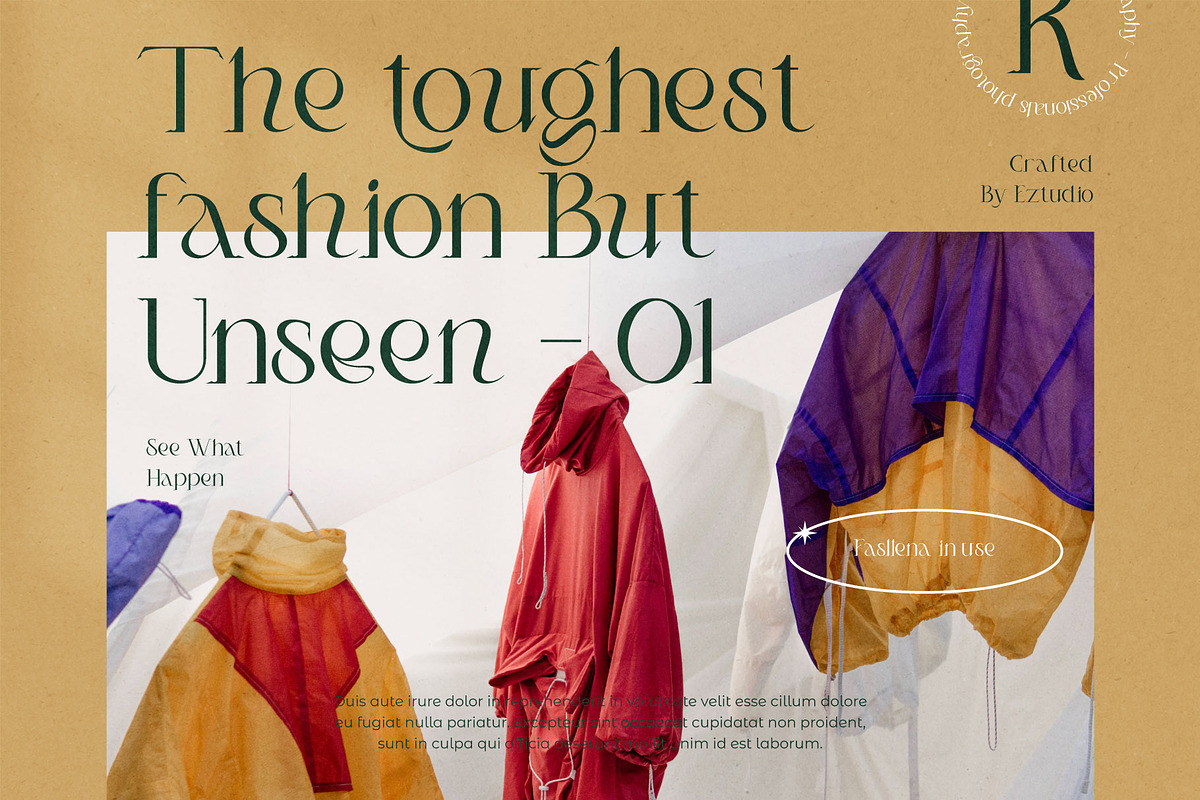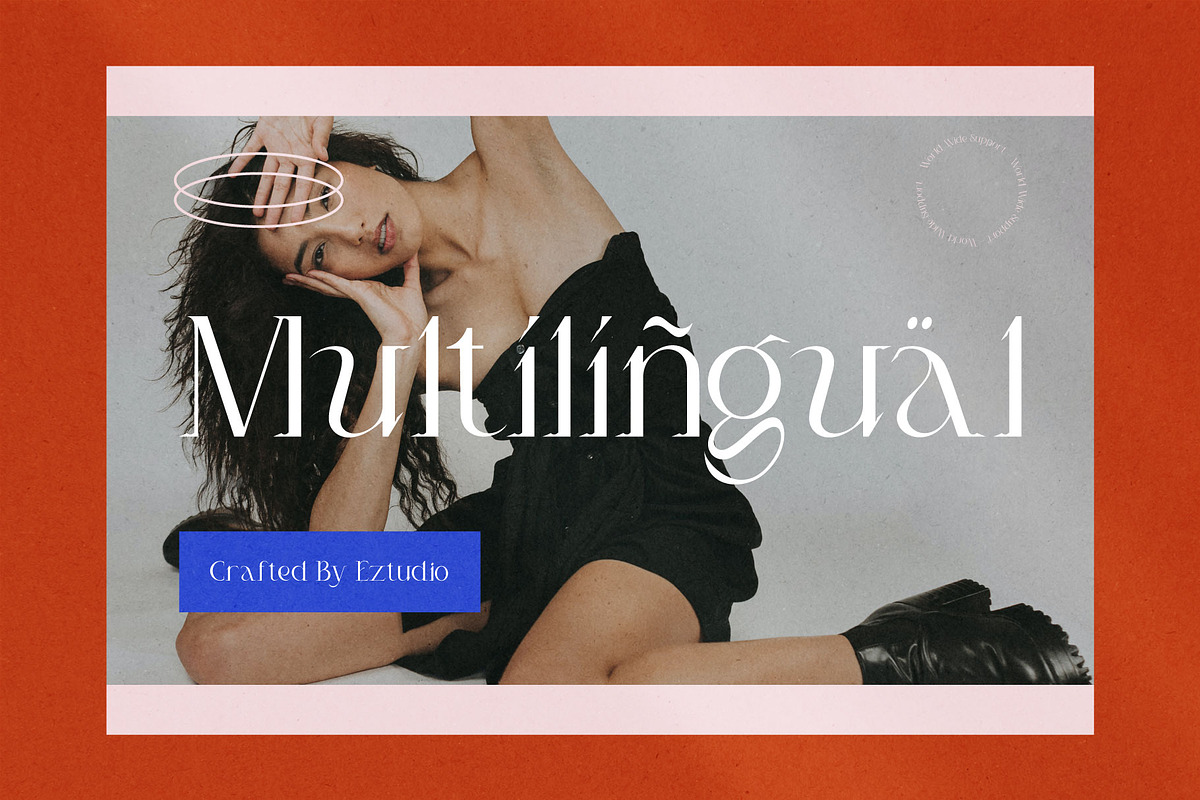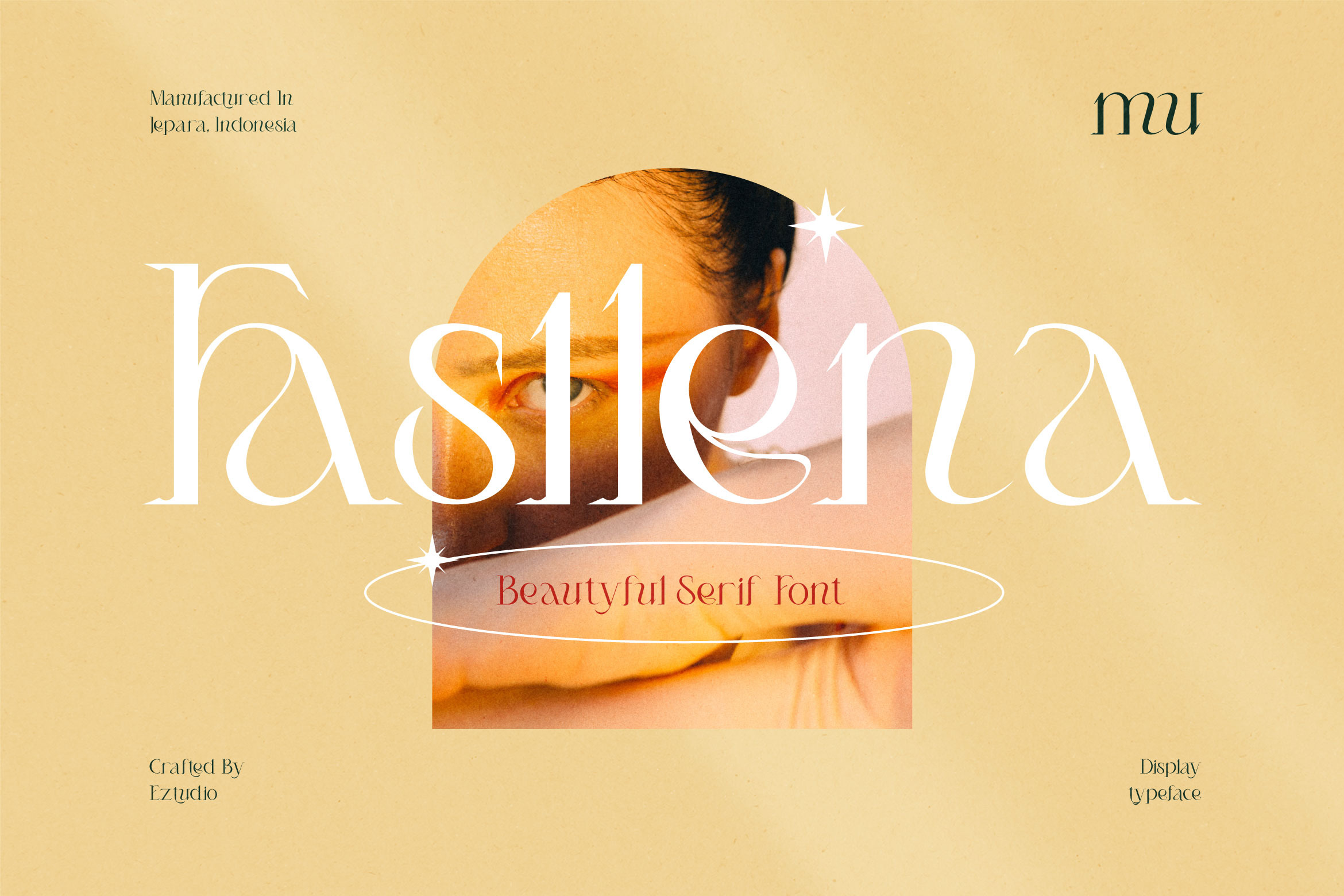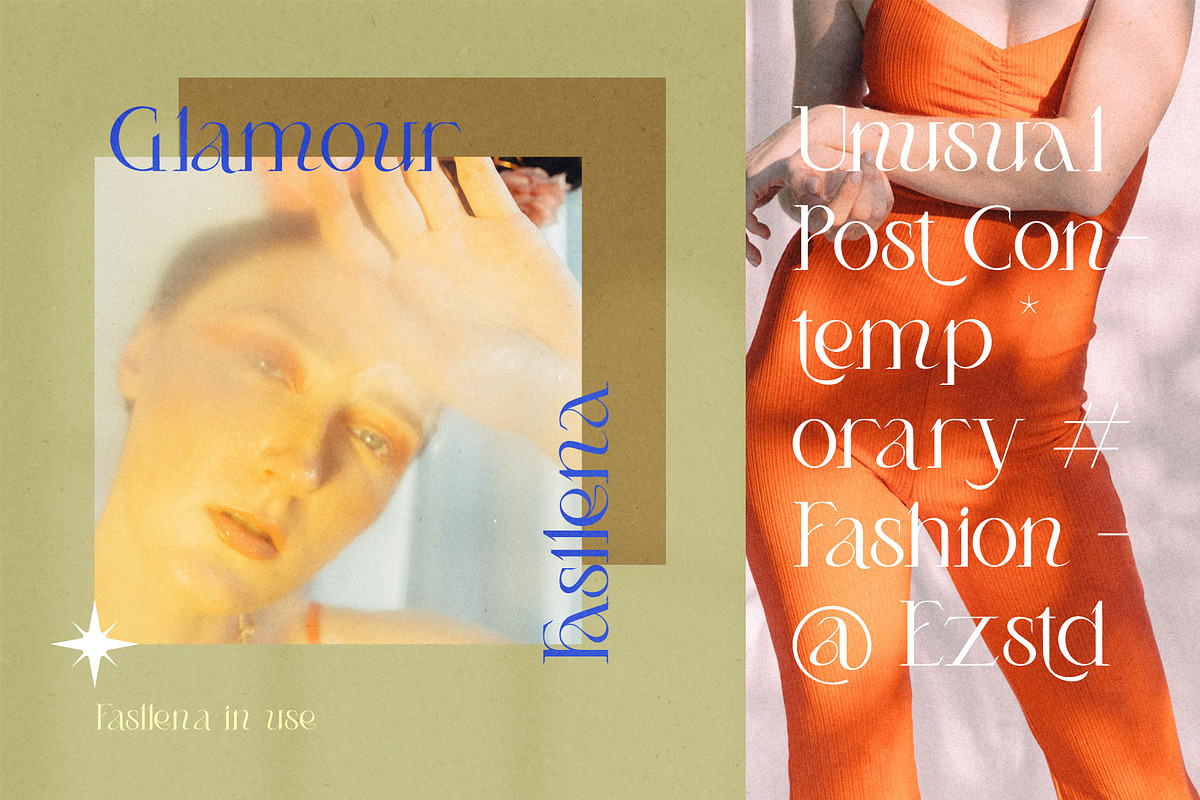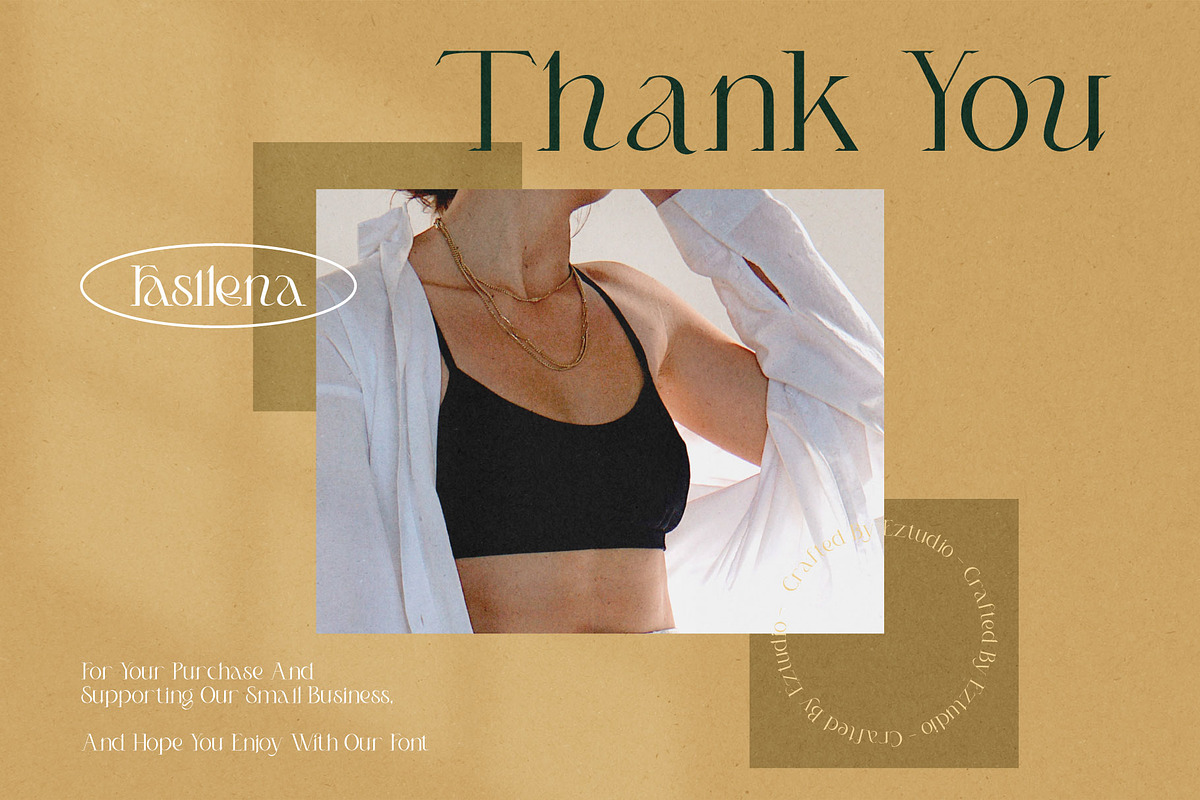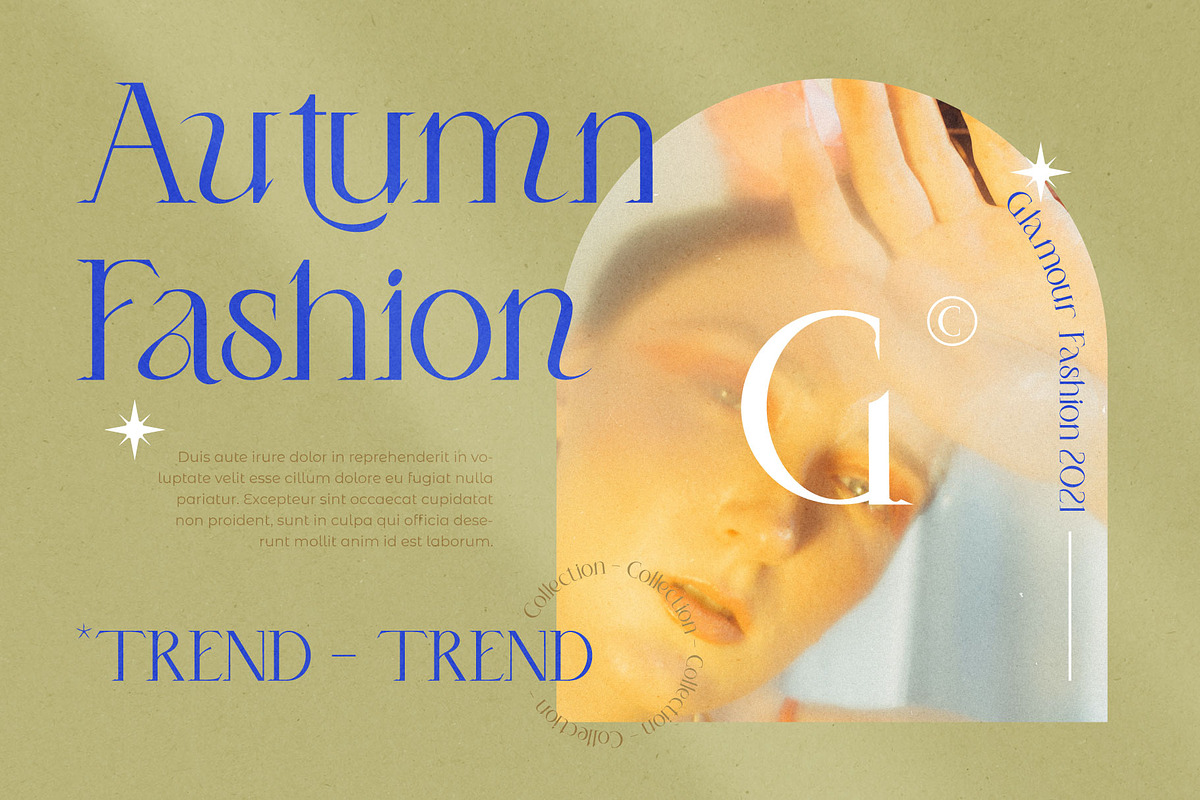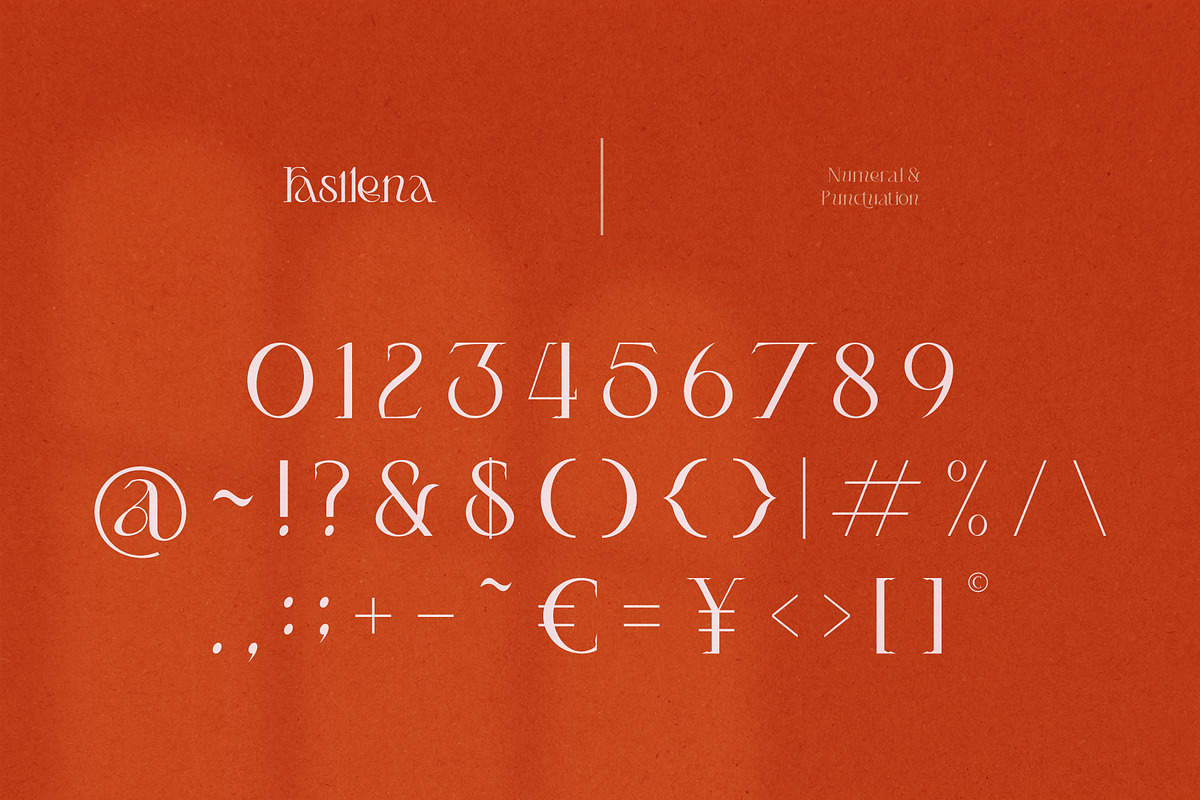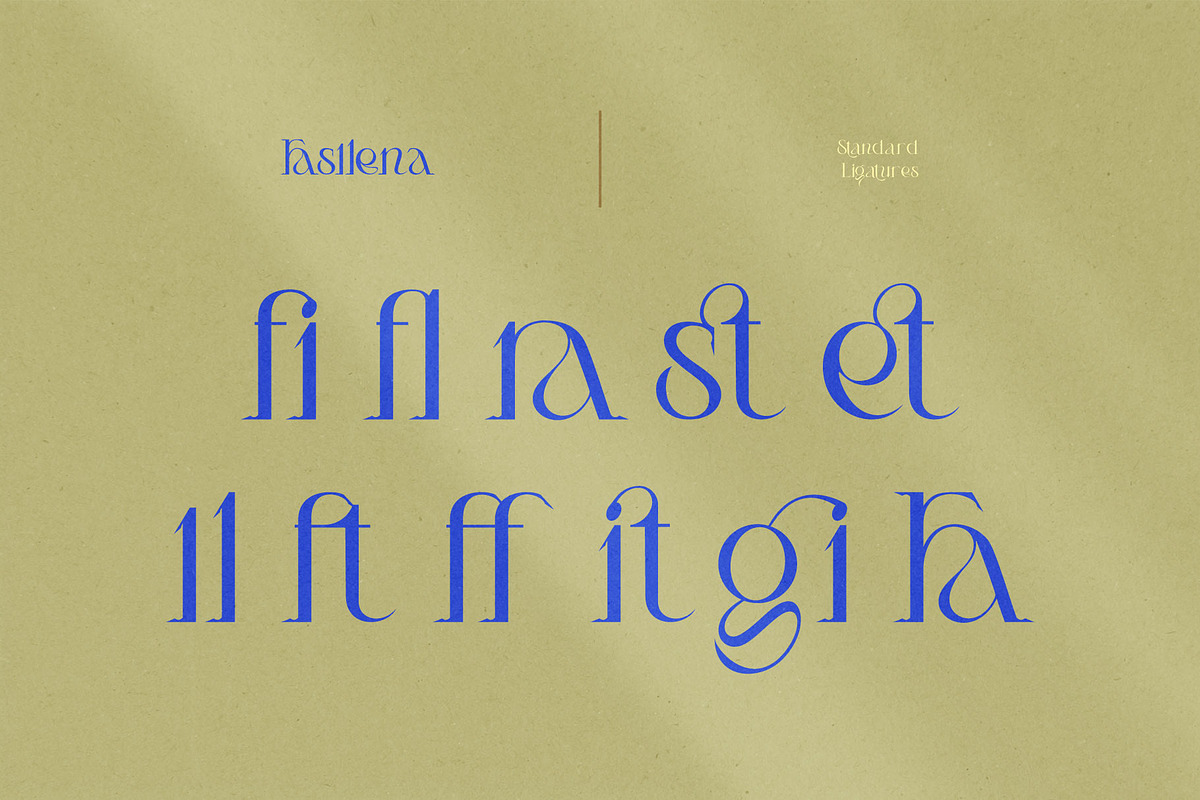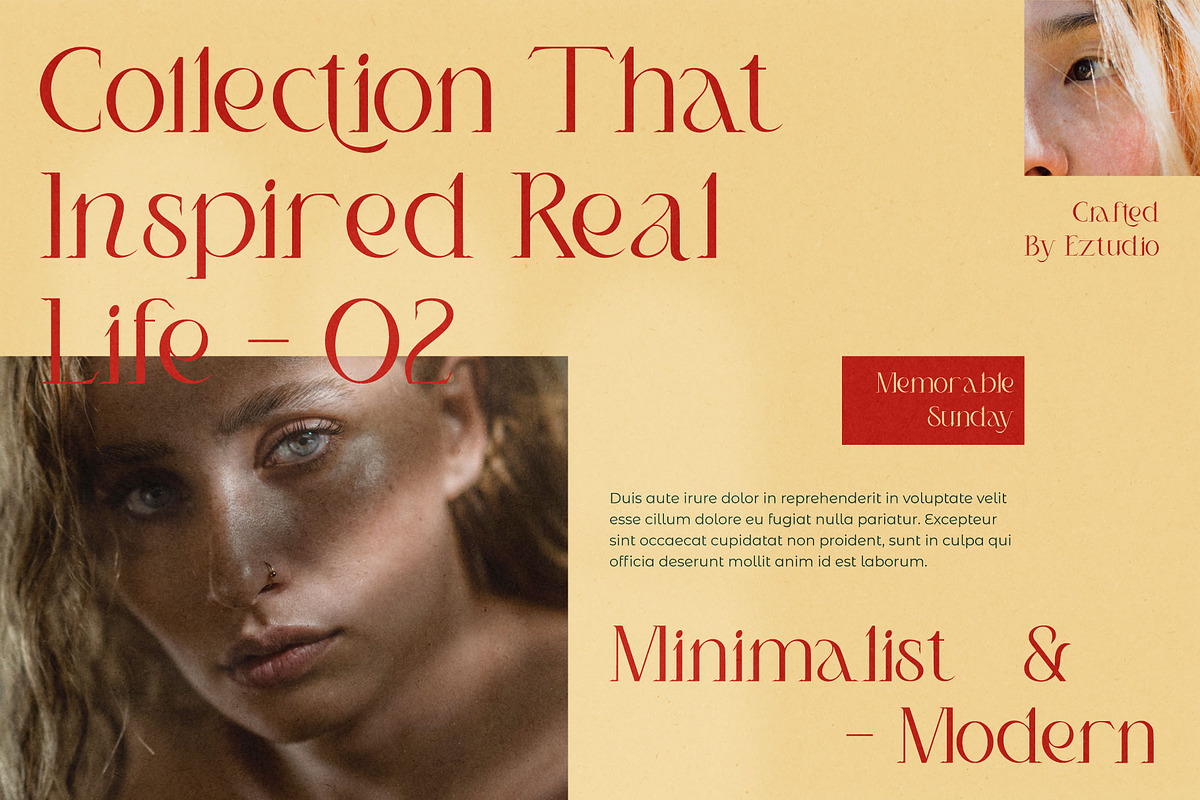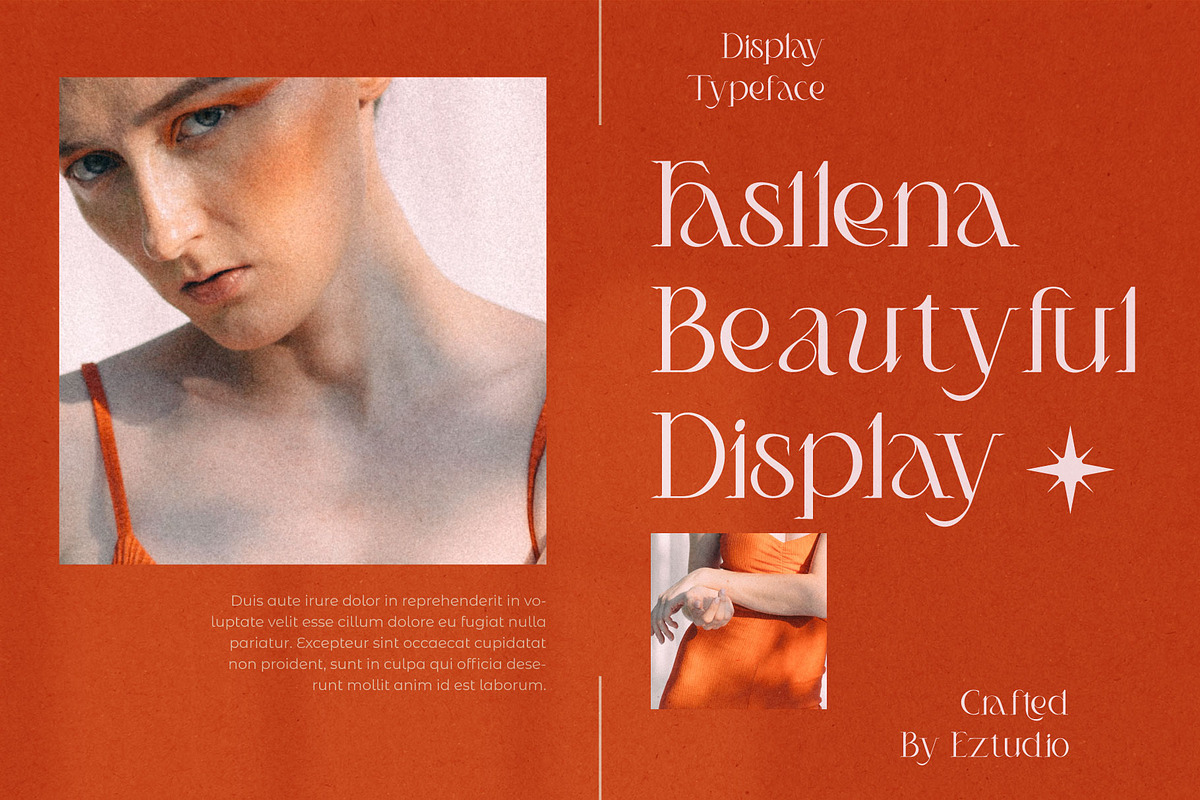
Fasllena - Classic Serif Font
Fasllena is an elegant and classic serif font. Incredibly versatile, this font fits a wide pool of designs, elevating them to the highest levels. Add this font to your favorite creative ideas and notice how it makes them come alive!
The Fasllena font includes:
- Uppercase Letters
- Lowercase Letters
- Special Characters
- Multilingual Glyphs